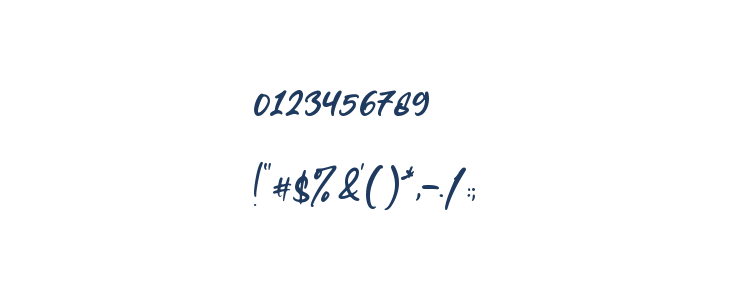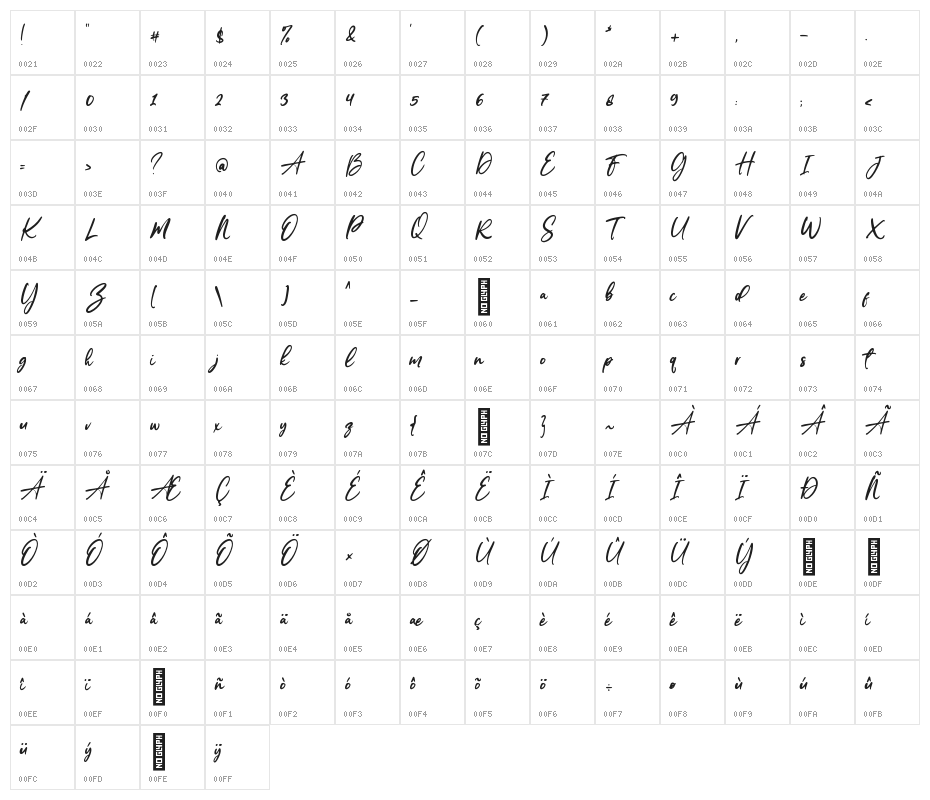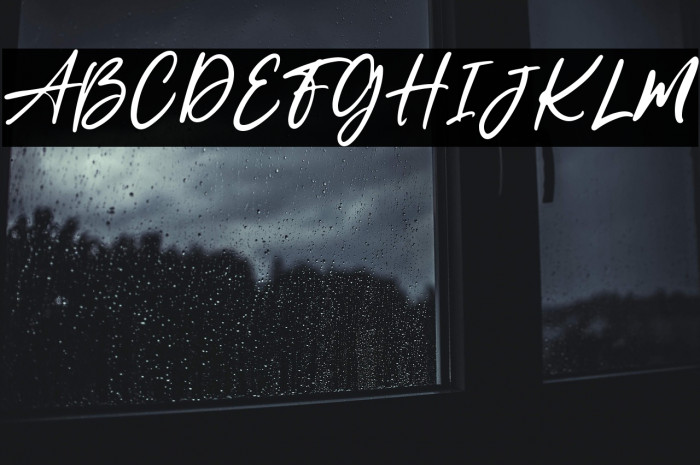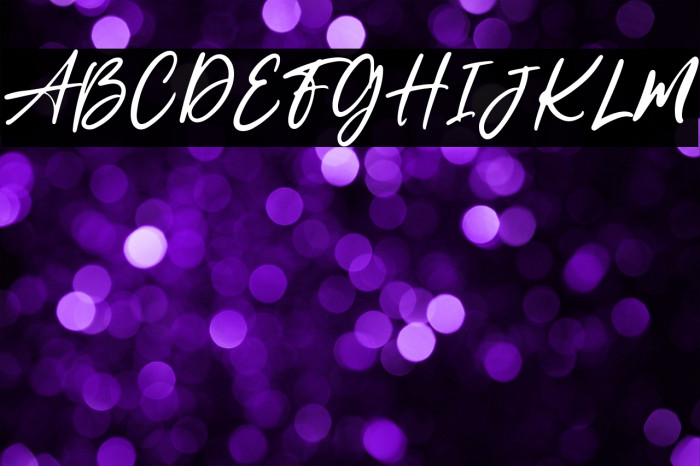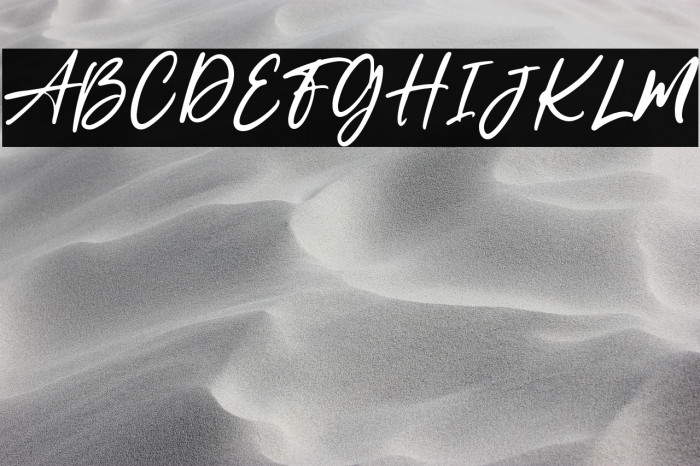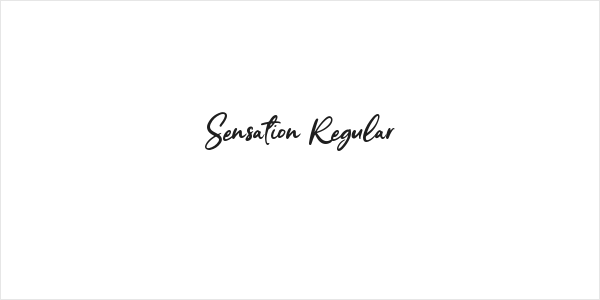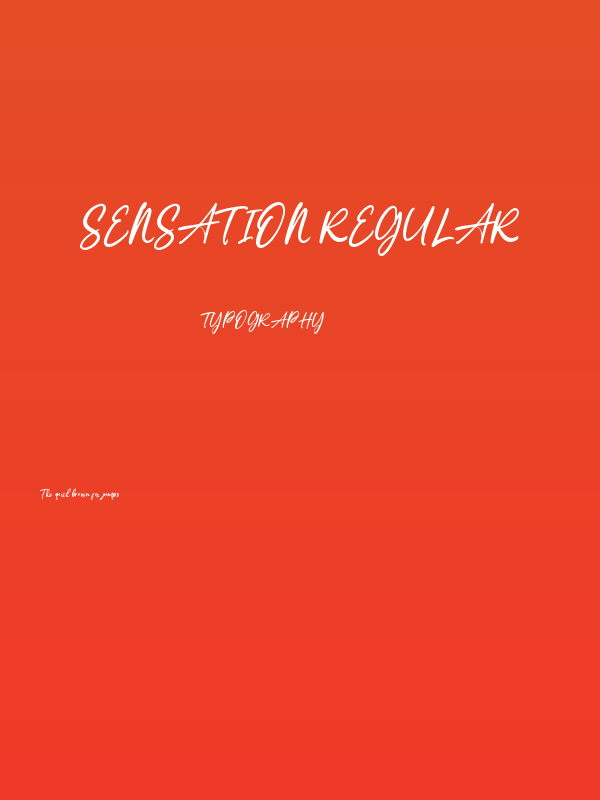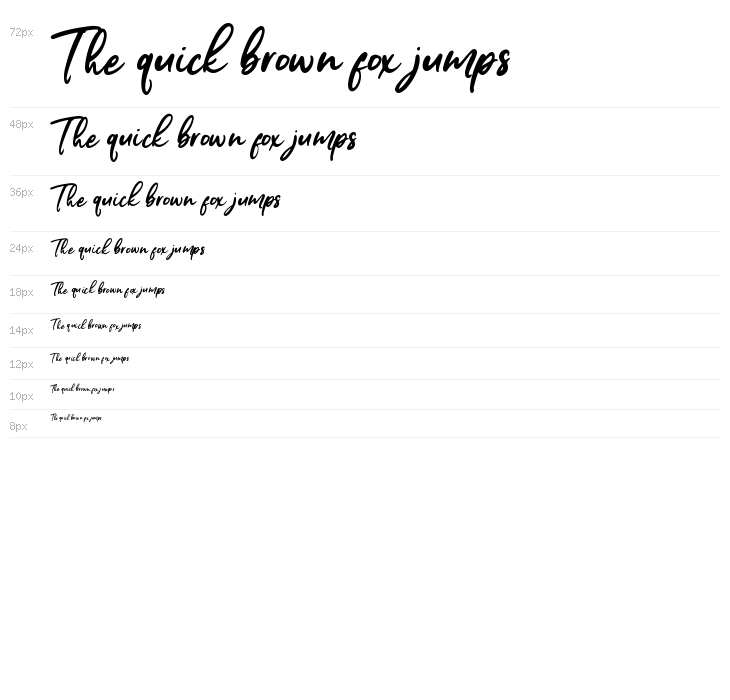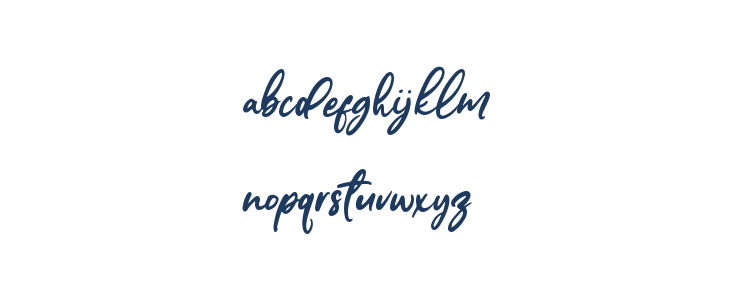
Sensation Regular Font
Sensation Regular Description
This font features a lively and expressive script style, characterized by fluid, interconnected strokes that mimic natural handwriting. The uppercase letters are bold and dynamic, with a slight slant that adds to the font's energetic feel. The lowercase letters maintain a consistent flow, enhancing readability while retaining a personal touch. Numbers and special characters are crafted with the same attention to detail, ensuring a cohesive appearance across all text. The overall design is both elegant and approachable, making it suitable for a variety of creative applications.